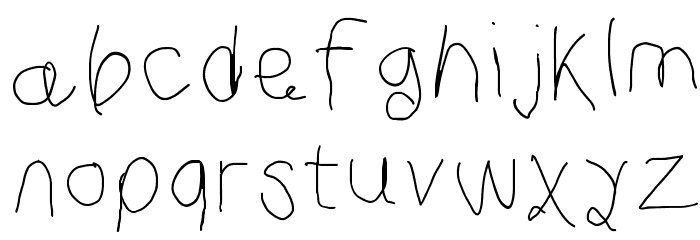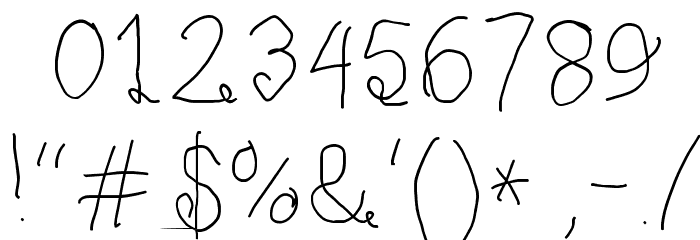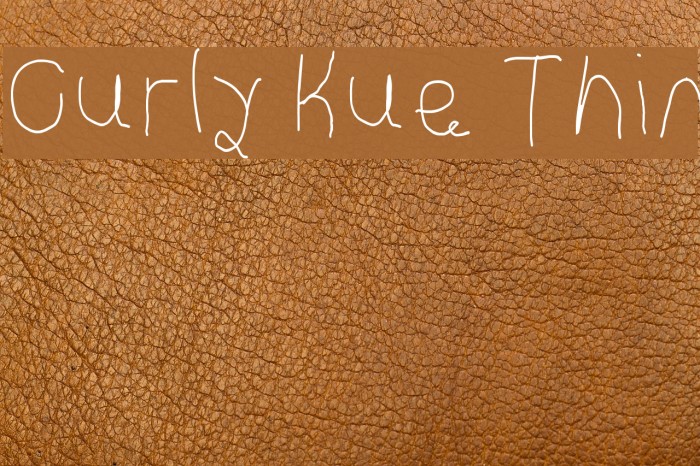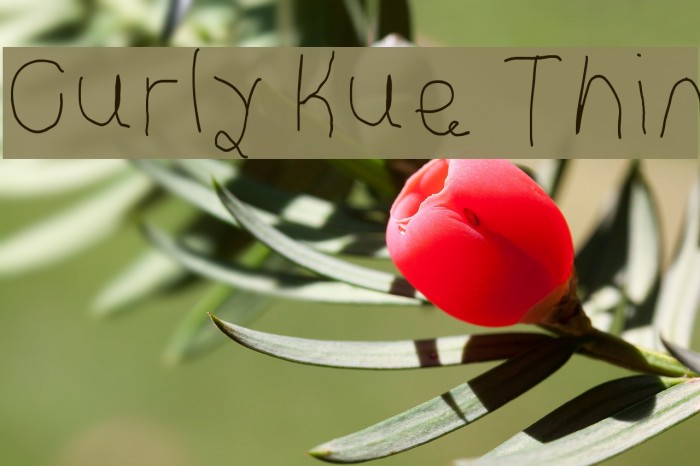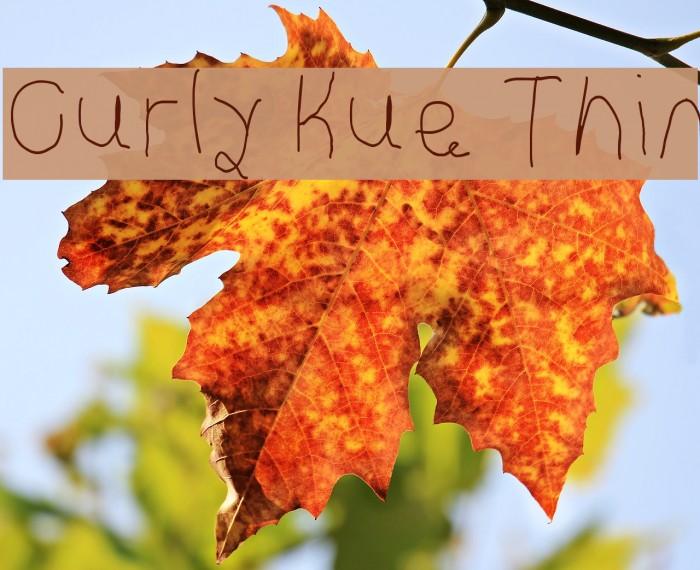
Curly Kue Thin Font
This font features a playful and whimsical handwritten style, characterized by its thin and curly strokes. Each letter has a unique, organic flow, giving it a casual and friendly appearance. The uppercase letters maintain a consistent height, while the lowercase letters exhibit a slight variation in size, enhancing the font's informal charm. Numbers and special characters follow the same curly, thin aesthetic, ensuring a cohesive look across all glyphs. The overall design is light and airy, making it suitable for projects that require a touch of personality and creativity.
A playful, thin, and curly handwritten font with a whimsical style.
- Proposed Projects: Ideal for greeting cards, children's books, playful branding, and creative invitations.
- Overall Style: Whimsical
- Use Case: Headlines, Logos, Creative projects